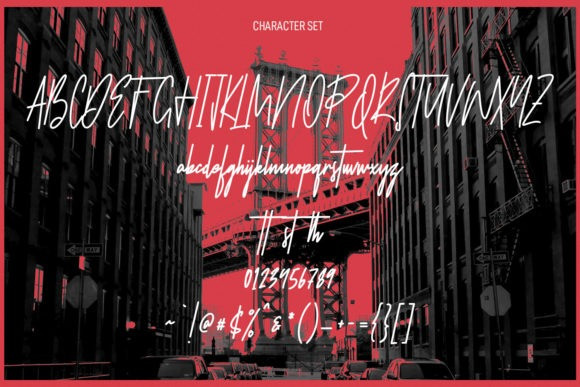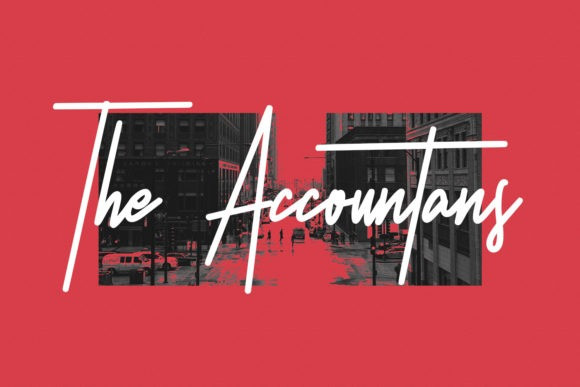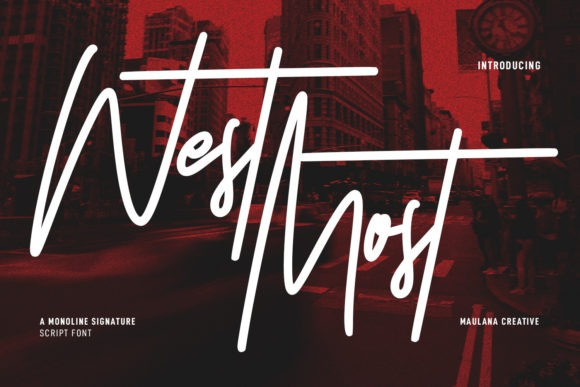
West Most Font
West Most Font is an expressive casual script font. With clean mono-line stroke, tall and fun characters this font is great for logo designs, social media projects, movie titles and various other creations.